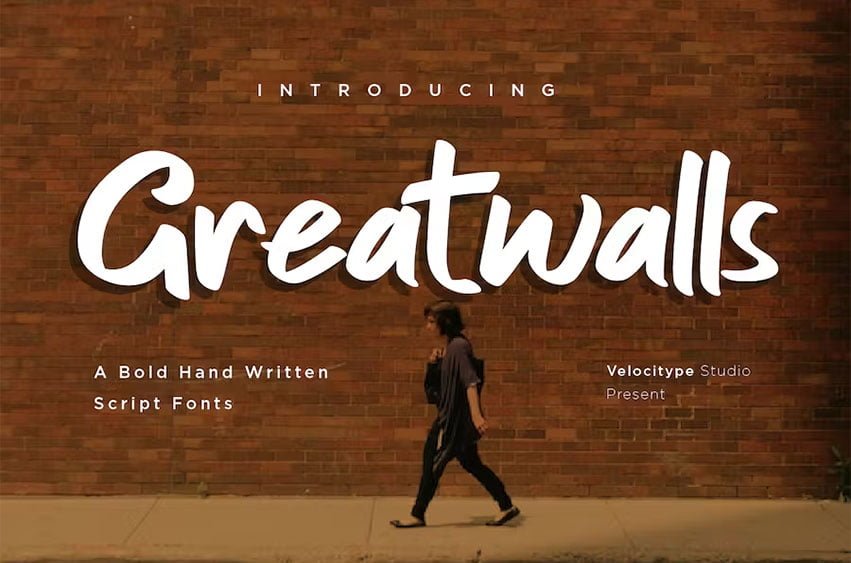
Greatwalls Font is a Modern Bold script font, that will be suitable for any project such as branding, promotional ads, quote design, merchandise, social media and much more. make your work or your business to high level!!! special events, and all your other lovely projects that need beautiful handwriting taste.
• Uppercase & Lowercase
• Numerals
• Punctuations (OpenType Standard)
• Accents (Multilingual Characters)